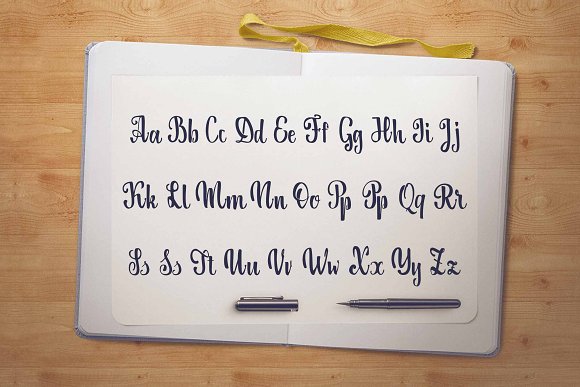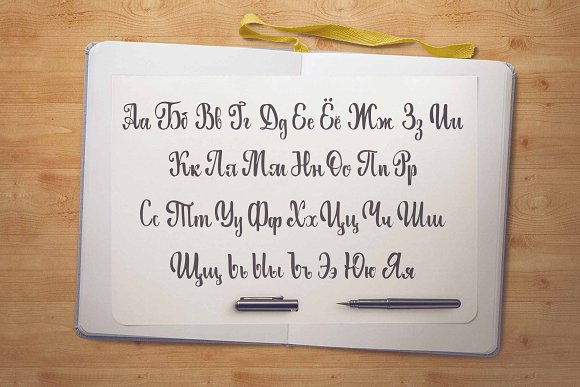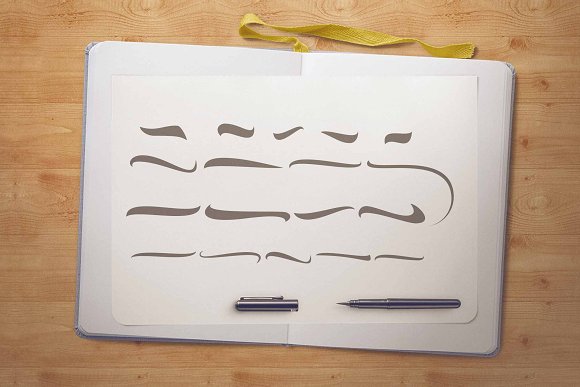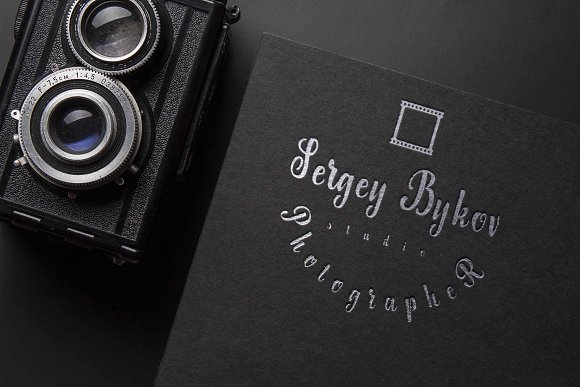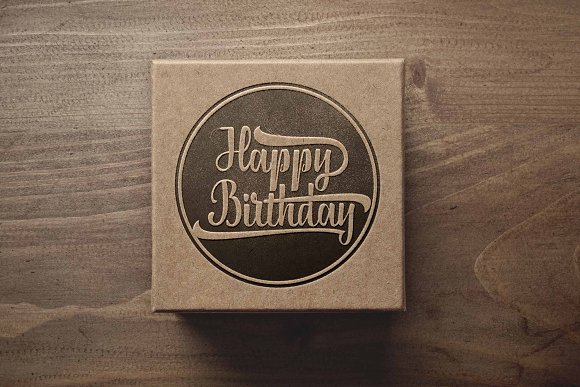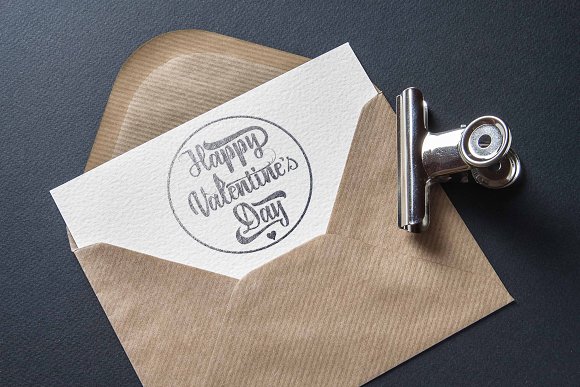
Bakinskay Handmade Font Brush
This font are perfect for wedding postcard. Or you can create perfect and unique design of your logo, blog, stationery, marketing, magazines and more